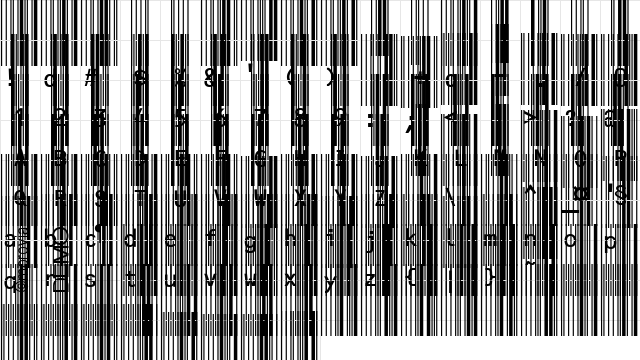
MRV Code39extMA Regular
MRV Code39extMA brings the precise, column-aligned rhythm of monospaced typography to designs that value technical clarity and systematic order.